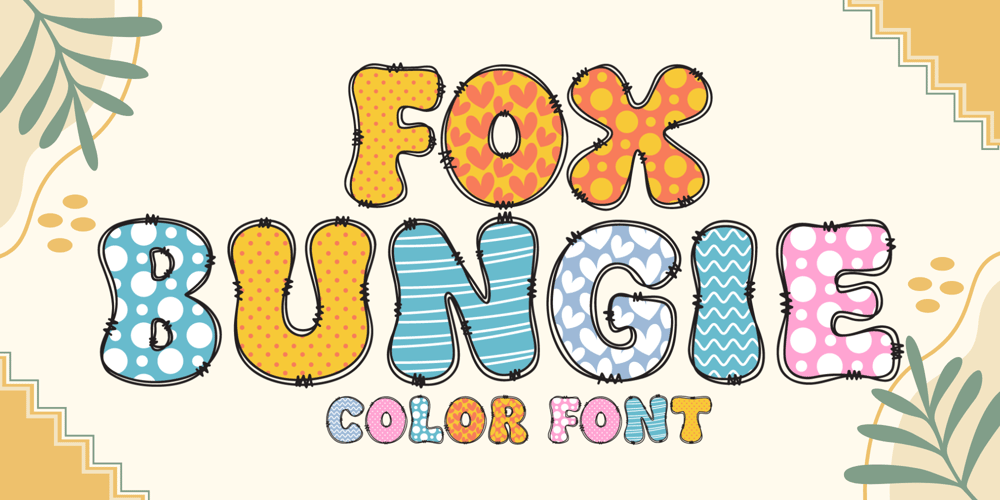
Fox Bungie
Fox Bungie font
Fox Bungie Font Family was designed by Rattana Rattanawan and published by Fox7. Fox Bungie contains 1 styles and family package options. Fox Bungie is a cute and fun Color font. You can use it for various projects, such as blog posts, logos, branding, ads, invitations, greeting cards, planners, photo albums, decorations, and much more. Add it to any of your designs, and enjoy the results!Learn more about color font support on third-party apps here: https://www.colorfonts.wtf/🌺🌺 Please note that the Canva do not support color fonts! 🌺🌺